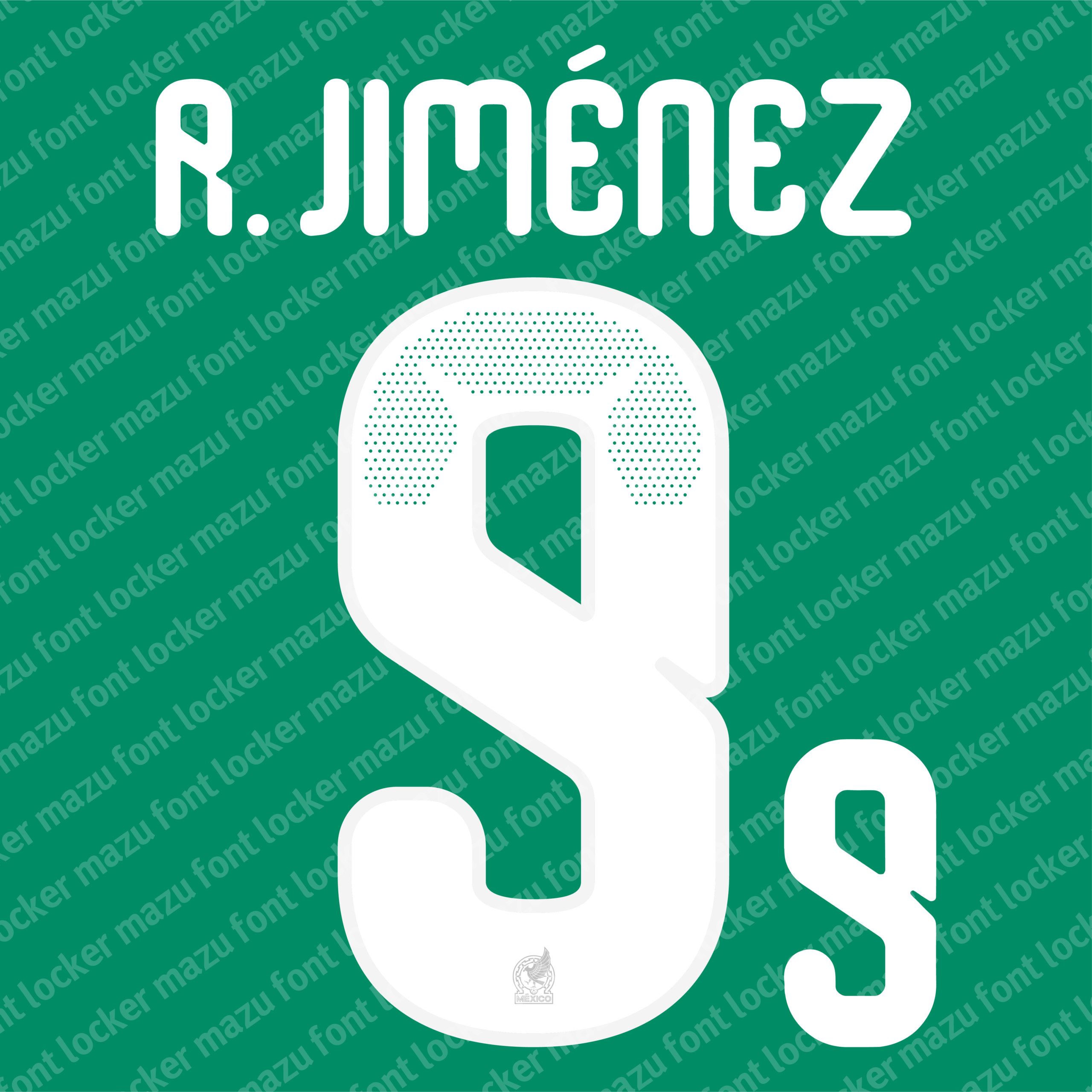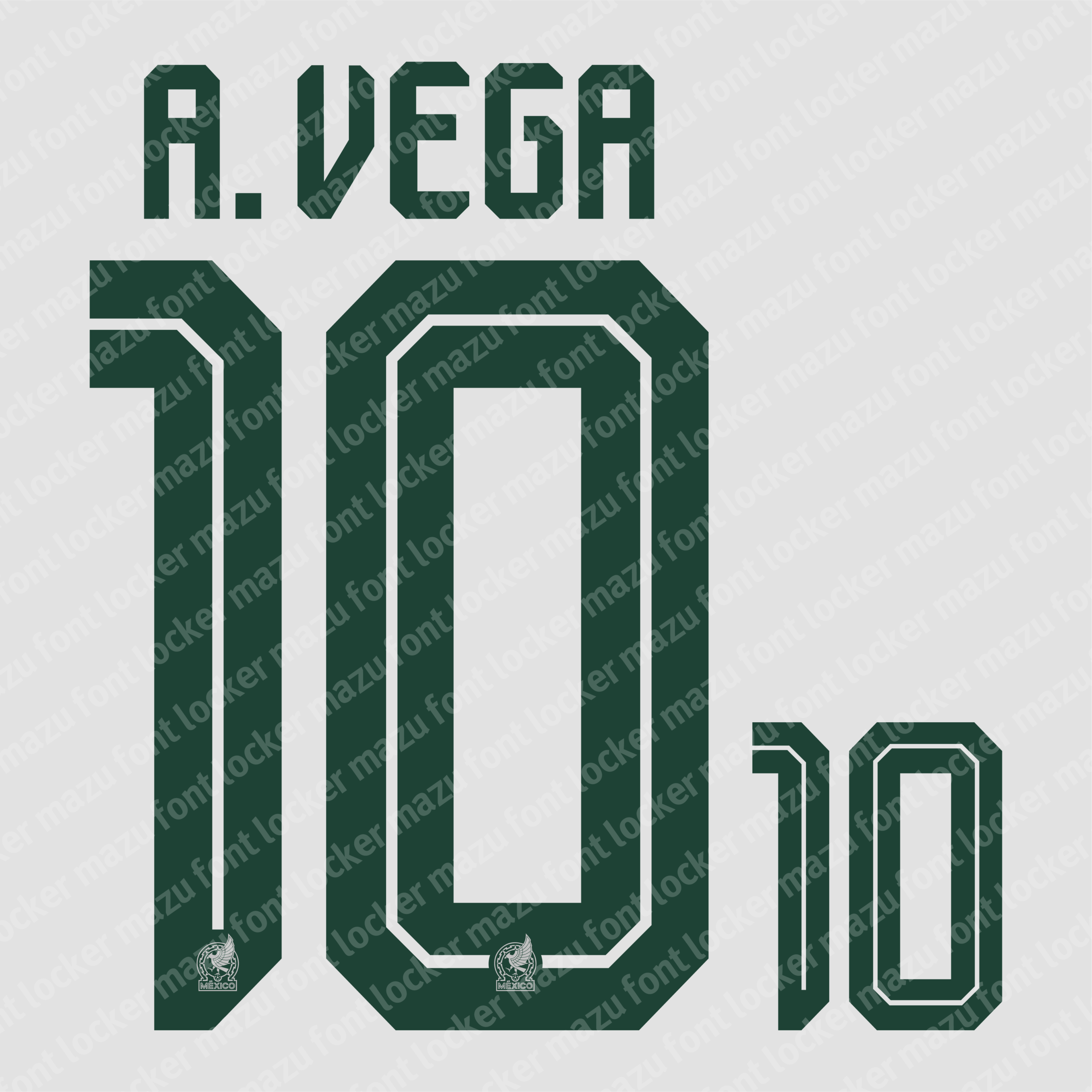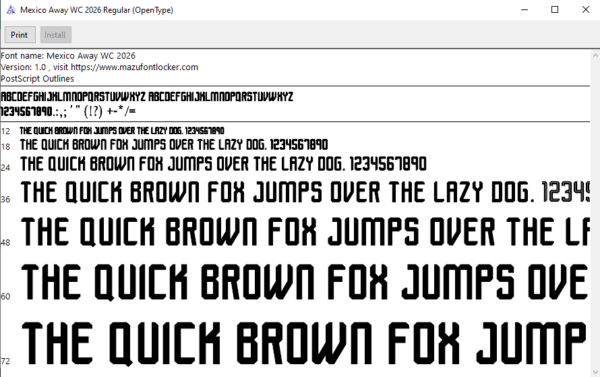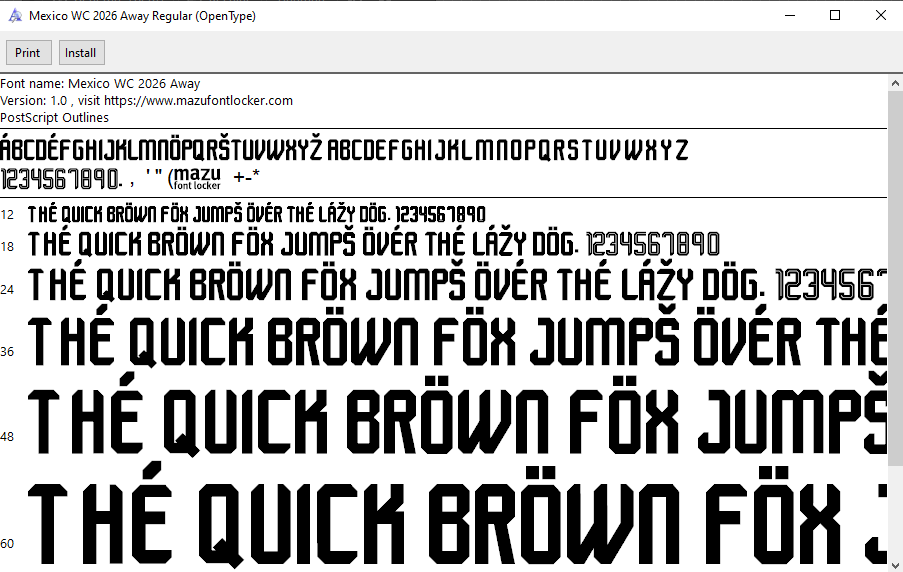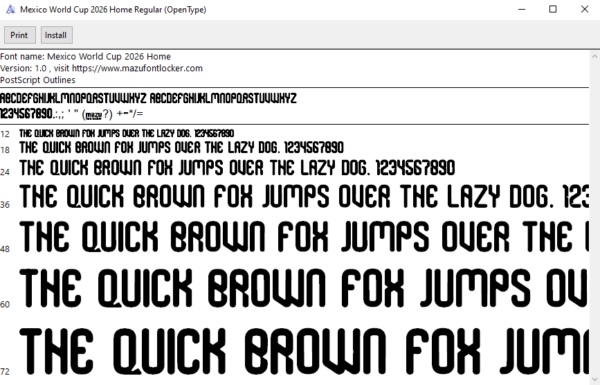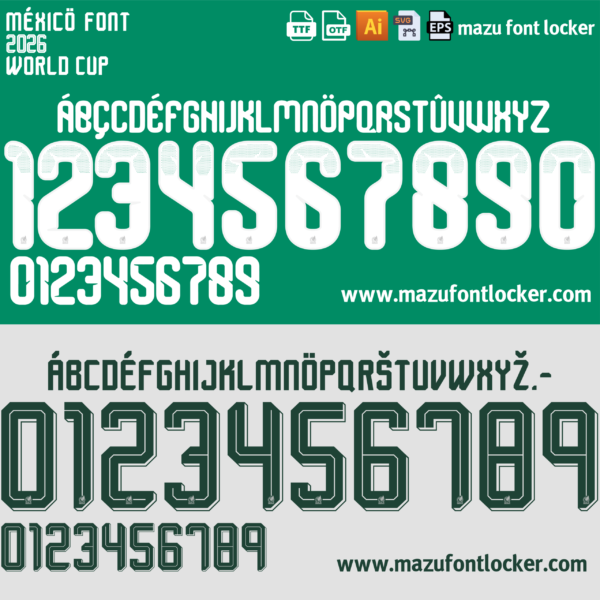
Mexico World Cup 2026 Font Vector – Glorious El Tri Masterpiece
Mexico World Cup 2026 Font is a high-quality football jersey font vector designed to replicate the official lettering and numbering style used during the World Cup 2026. This Mexico World Cup 2026 font is perfect for designers, football fans, and creators who want accurate and professional jersey customisation.
Inspired by the official kit of Mexico, this Mexico World Cup 2026 font delivers a clean and authentic match-day appearance. Every letter and number has been carefully recreated to match the real jersey design, ensuring your projects look realistic and professional.
Mexico World Cup 2026 Font Vector – Authentic Jersey Lettering
Mexico World Cup 2026 font is a high-quality football jersey font vector created to replicate the official lettering and numbering style used during the iconic World Cup 2026. Perfect for designers, football fans, and jersey customisation projects, this font set delivers an authentic and professional match-day appearance.
Inspired by the original Mexico national team kit, every letter and number has been carefully recreated to ensure accurate retro styling for both digital and print projects.
• Authentic World Cup 2026 Mexico jersey lettering style
The authentic lettering style helps recreate the classic look of the Mexico World Cup 2026 kit with professional accuracy.
Unlike generic jersey fonts, this set is designed with a strong focus on authenticity and accuracy. Every detail is based on the original match lettering style used during the World Cup 2026, helping designers and collectors create realistic football shirt designs.
This Mexico World Cup 2026 font vector set is designed for authentic football jersey customization and works perfectly for retro football projects, collector designs, and professional sportswear artwork.